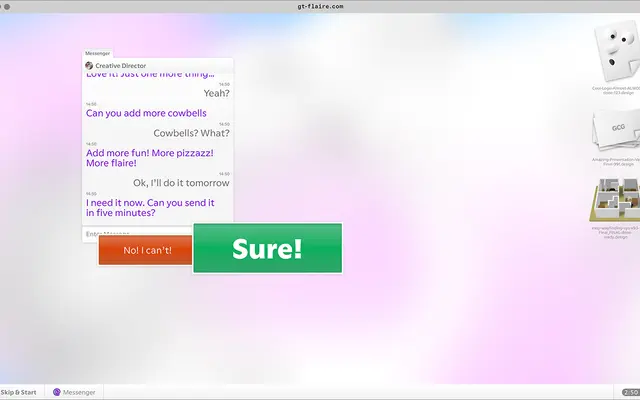
GT Flaire
Grilli Type · Reto Moser · 2024
GT Flaire specimen from Grilli Type
Reto Moser's calligraphic sans translating pressured pen curves into a digital family across Basic and Extra cuts.
A calligraphic sans by Reto Moser, released in 2024 and offered in 28 styles split between Basic and Extra subfamilies. Grilli describe it as capturing the pronounced curves of a calligraphic pen pressed against paper, and as bridging the worlds of business and pleasure. Seven weights from Light to Extra come with italics, plus framed-letter alternates for added decorative range.
Grilli say it captures the pronounced curves created by calligraphic pens when applying ink to paper under pressure, translating them into a digital format. It is built to bridge corporate and playful registers.